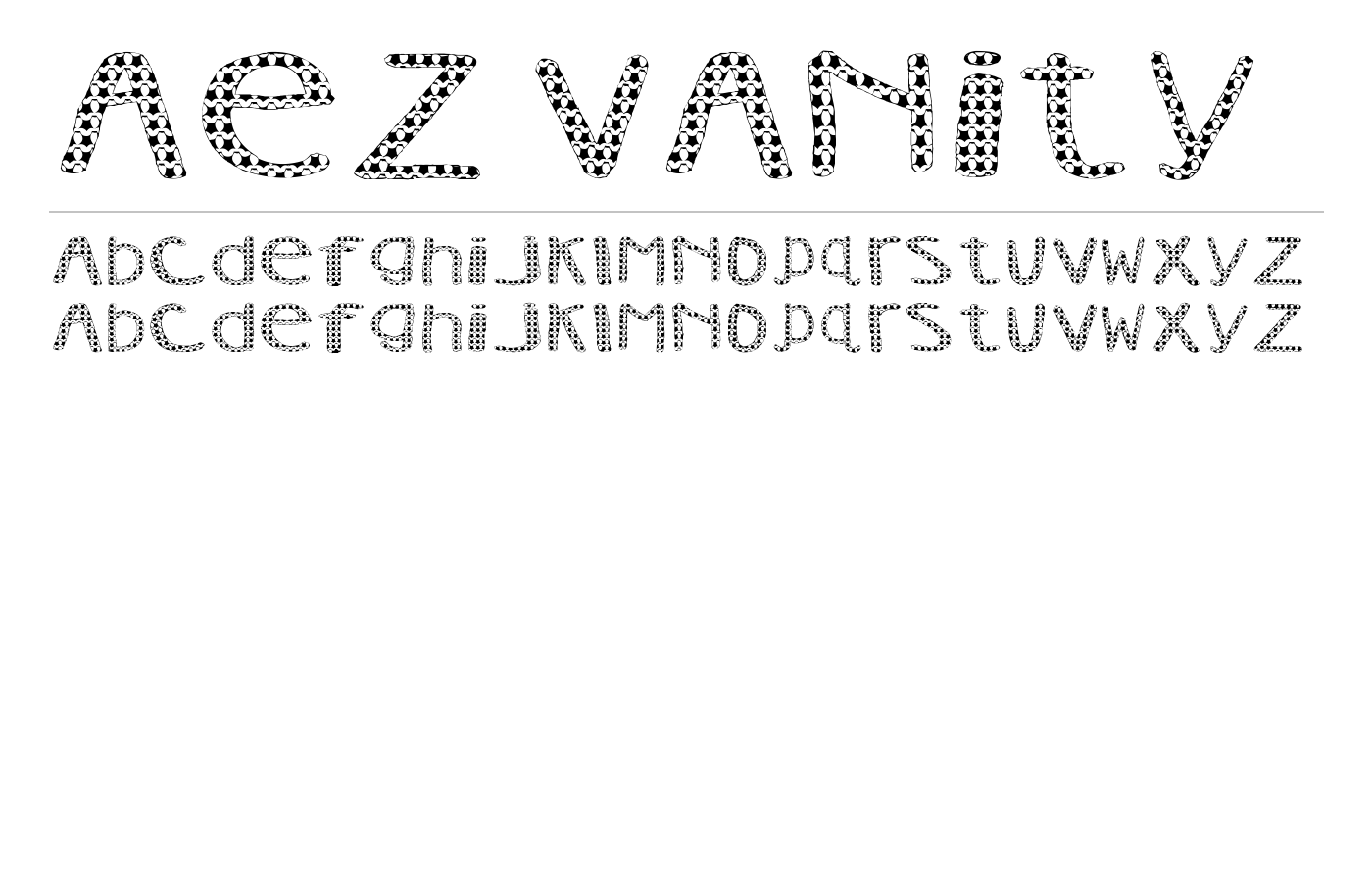
AEZ Vanity is a playful and unique sans serif font characterized by its rounded, bubbly letterforms filled with a distinctive polka-dot pattern. It has a casual, hand-drawn feel with a light weight and normal width, making it ideal for creative and fun designs that want to stand out with a whimsical personality. This font works well in headlines, logos, and branding projects where a youthful, artistic vibe is desired.
AEZ Vanity Font
About AEZ Vanity Font
| Font family | AEZ Vanity Font |
| Designer | Anastacia E. Zittel |